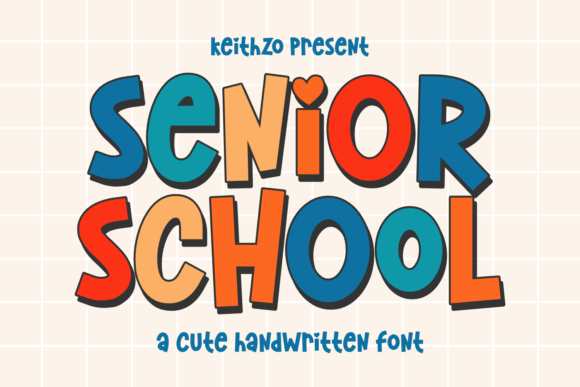
Introducing Senior School Font: The Ultimate Choice for Whimsical Designs
In the world of typography, fonts play a crucial role in conveying emotions and setting the tone for various design projects. When it comes to creating visually appealing and engaging content, the right font can make all the difference. This is where Senior School Font comes into play – a charmingly handwritten and whimsical display font designed to bring joy and cheerfulness to your designs.
What is Senior School Font?
Senior School Font is a unique and creative typeface that boasts a playful, handwritten aesthetic. Its whimsical design makes it an excellent choice for a wide range of projects, from trendy t-shirt prints and captivating display boards to creative crafts, delightful stickers, insightful quotes, stylish tumblers, and remarkable sublimation projects.
The Versatility of Senior School Font
One of the standout features of Senior School Font is its versatility. This font is tailored to meet diverse design needs, making it an excellent addition to any designer’s toolkit. Whether you’re working on a school-themed project or simply want to add a touch of whimsy to your design, Senior School Font is the perfect choice.
Here are some of the ways you can use Senior School Font:
- T-shirt prints: Create eye-catching and fun designs for school events, clubs, or organizations.
- Display boards: Make a statement with captivating display boards that showcase important information or announcements.
- Creative crafts: Add a personal touch to your craft projects, such as handmade cards, gift tags, or scrapbook pages.
- Stickers: Design delightful stickers for school supplies, laptops, or water bottles.
- Quotes: Create inspiring and visually appealing quotes for social media, posters, or flyers.
- Tumblers: Design stylish and personalized tumblers for school events or everyday use.
- Sublimation projects: Create remarkable sublimation projects, such as customized mugs, phone cases, or tote bags.
The Benefits of Using Senior School Font
With Senior School Font, you get more than just a font – it’s a tool that brings your design visions to life. Here are some of the benefits of using Senior School Font:
- Unique and creative: Senior School Font offers a distinctive and creative aesthetic that sets it apart from other fonts.
- Easy to read: Despite its whimsical design, Senior School Font is easy to read and understand, making it perfect for a wide range of projects.
- Versatile: Senior School Font can be used for various design projects, from school-themed designs to general creative projects.
- Time-saving: With Senior School Font, you can create stunning designs quickly and efficiently, saving you time and effort.
Tips for Using Senior School Font
To get the most out of Senior School Font, here are some tips to keep in mind:
- Experiment with colors: Senior School Font looks great in a variety of colors, so don’t be afraid to experiment and find the perfect color scheme for your design.
- Play with sizes: Senior School Font can be used at various sizes, from small and delicate to large and bold.
- Combine with other fonts: Senior School Font can be paired with other fonts to create visually appealing and engaging designs.
- Use it consistently: To create a cohesive look, use Senior School Font consistently throughout your design project.
In conclusion, Senior School Font is an excellent choice for designers looking to add a touch of whimsy and joy to their projects. With its unique and creative aesthetic, versatility, and ease of use, Senior School Font is a valuable addition to any designer’s toolkit. Whether you’re working on a school-themed project or simply want to create visually appealing designs, Senior School Font is the perfect choice.
Here are some frequently asked questions about Senior School Font:
- What is Senior School Font? Senior School Font is a charmingly handwritten and whimsical display font designed for various design projects.
- Is Senior School Font easy to read? Yes, despite its whimsical design, Senior School Font is easy to read and understand.